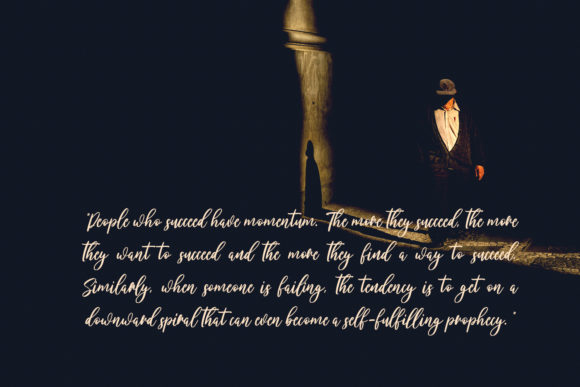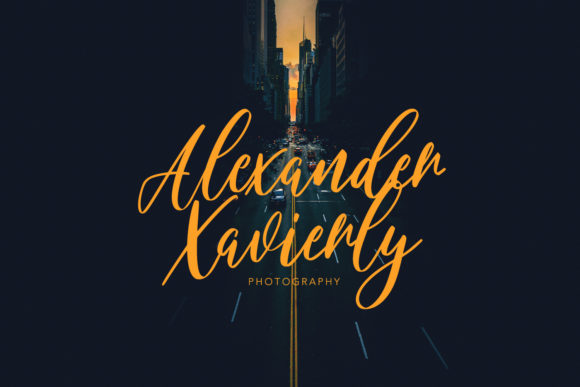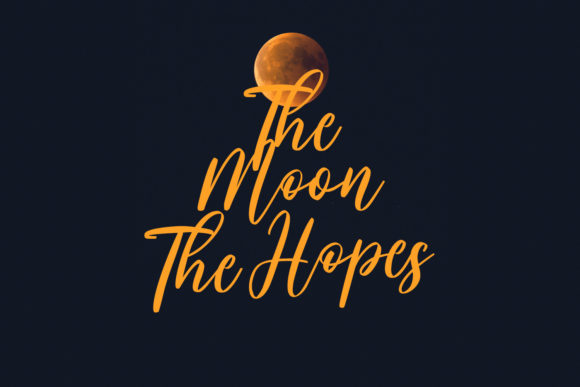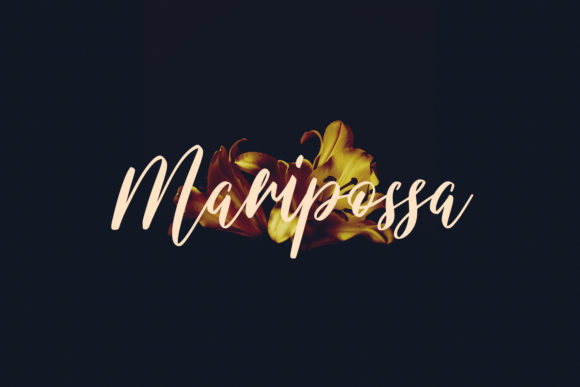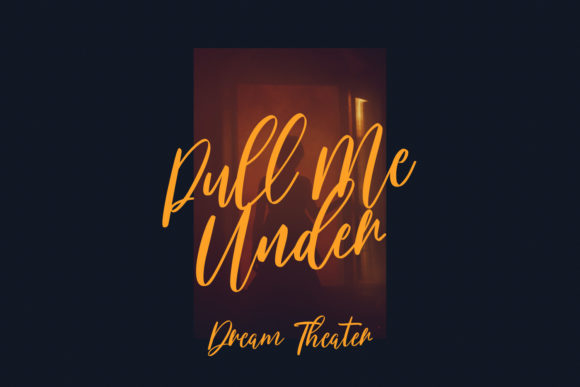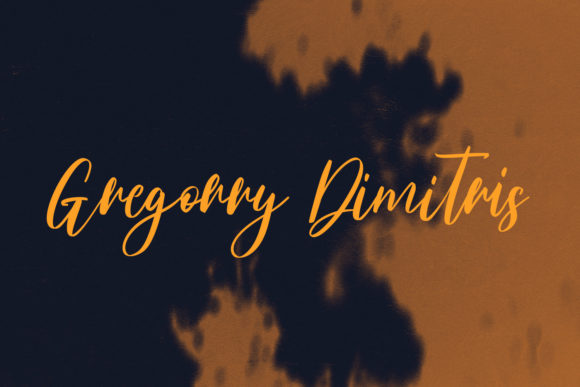
Introduction to Slowtyfill Font
Slowtyfill is a beautiful and charming script font.
Fall for its exquisite style and use it to create gorgeous wedding invitations, beautiful stationary art, eye-catching social media posts, and much more .
Key Features of Slowtyfill Font
Why Choose Slowtyfill Font?
Slowtyfill Font offers exceptional quality and versatility, making it a valuable addition to your design toolkit. Whether you’re creating for personal projects or commercial use, Slowtyfill Font delivers professional results.